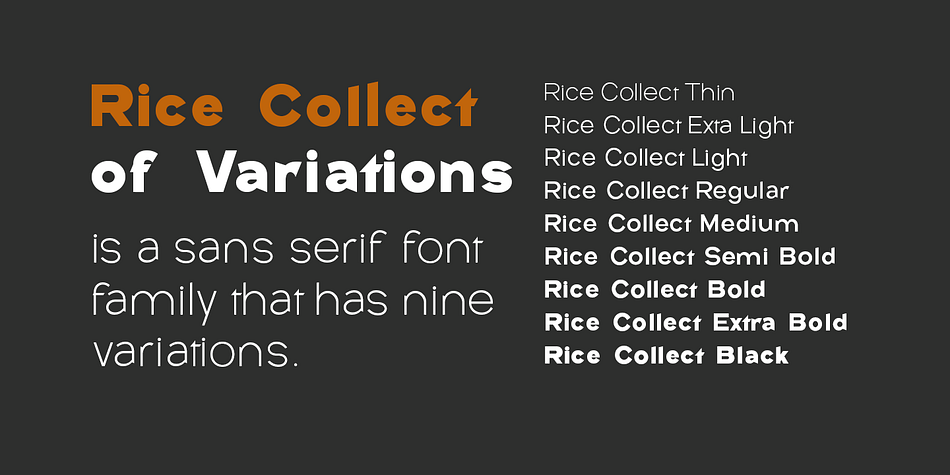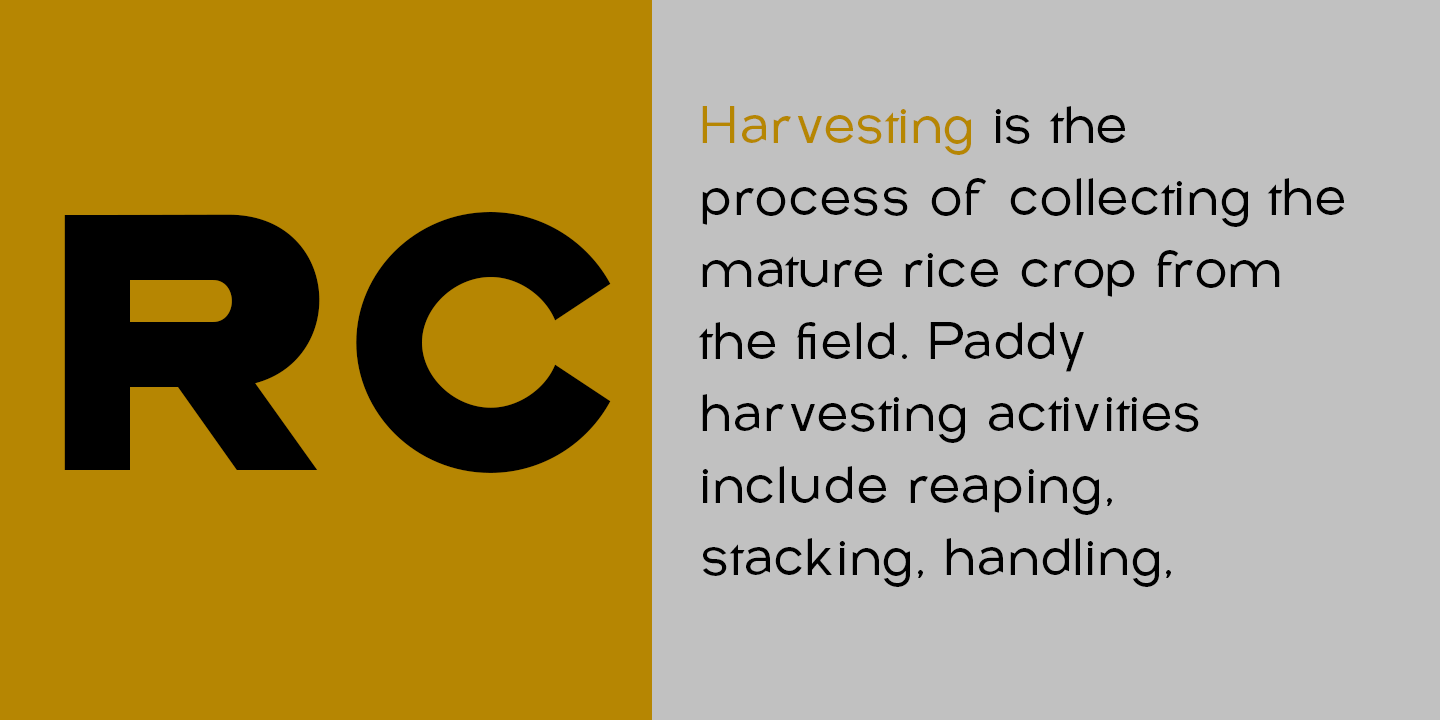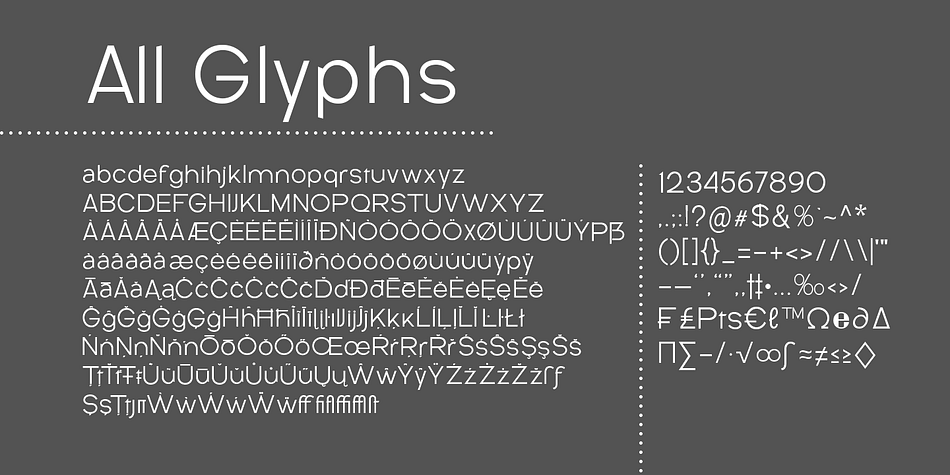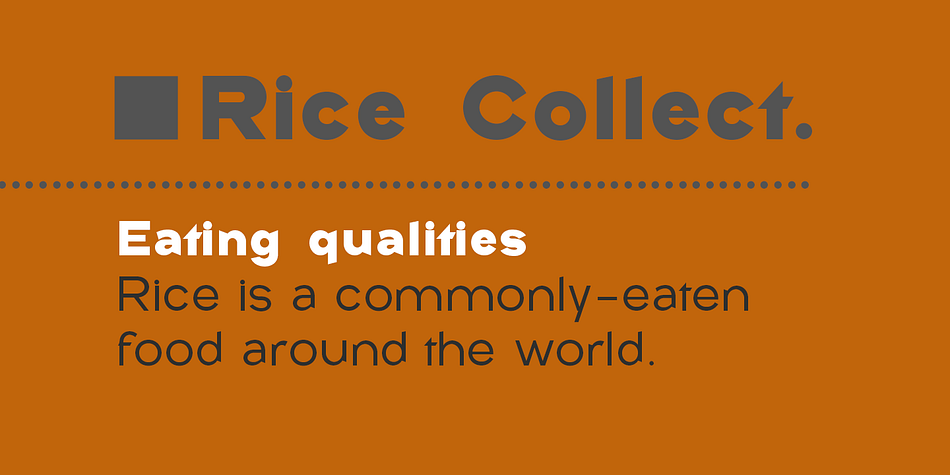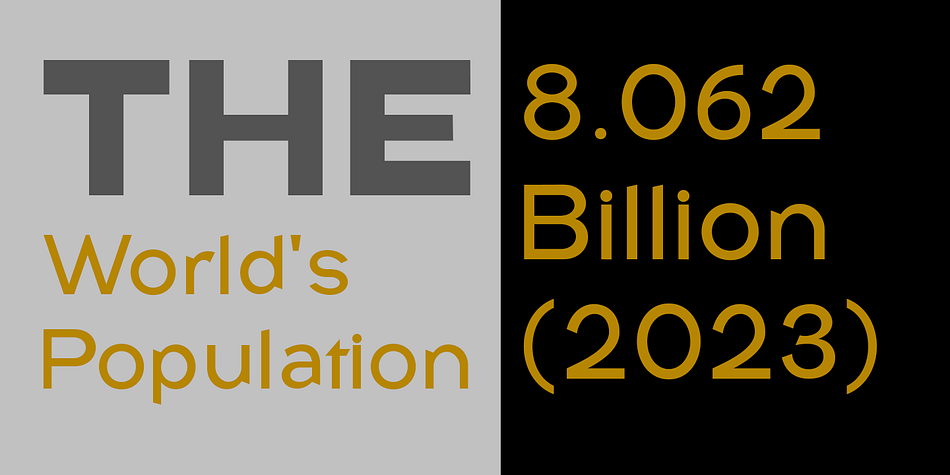
Rice Collect
Designed by Roiyani Teungku, Rice Collect is a sans serif font family. This typeface has nine styles and was published by Groens.
** Rice Collect** is a New Formal and Elegant Typeface. Created in a very bold style.
** Rice Collect** is a variation of the normal style font and has a distinctive feature in the corners of the glyph characters look sharp. This font comes in 9 variations, This font looks amazing in logos, magazines, and films. This font will be perfect for branding, headlines, captions, paragraphs, and posters. Various weights allow you to experiment with various applications. This font is made to make an impression without sacrificing its beauty and readability.
** Rice Collect** is Sans-serif lettering and typefaces are popular due to their clarity and legibility at distance in advertising and display use, both when printed very large or small.